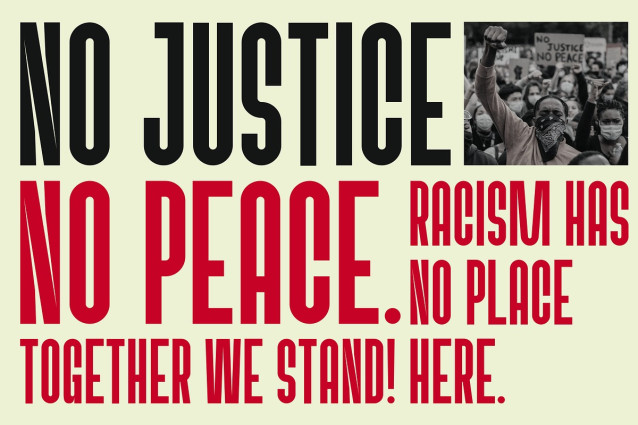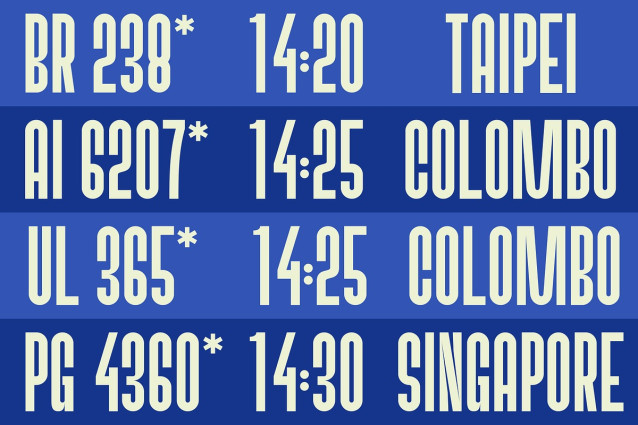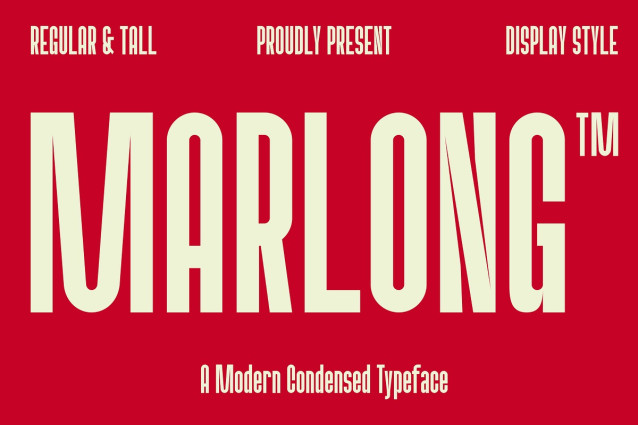
Marlong Condensed Font
Marlong Condensed Font is a bold and authentic display font. The font is suitable for any branding project like logo, Template Design, Product and many more. outstanding in a wide range of contexts.